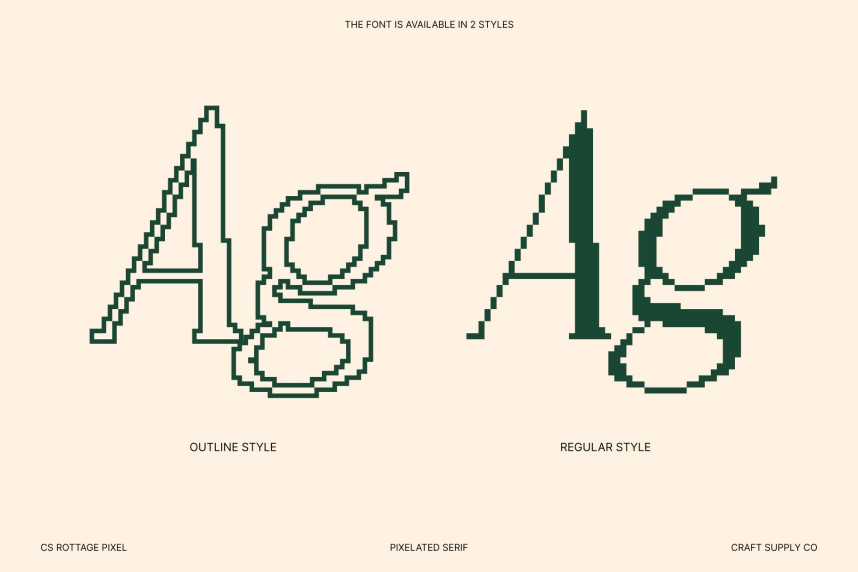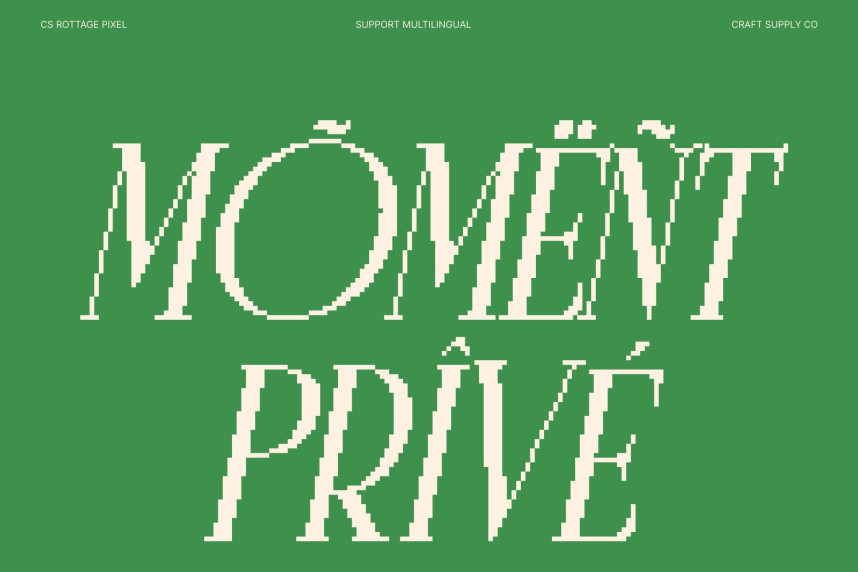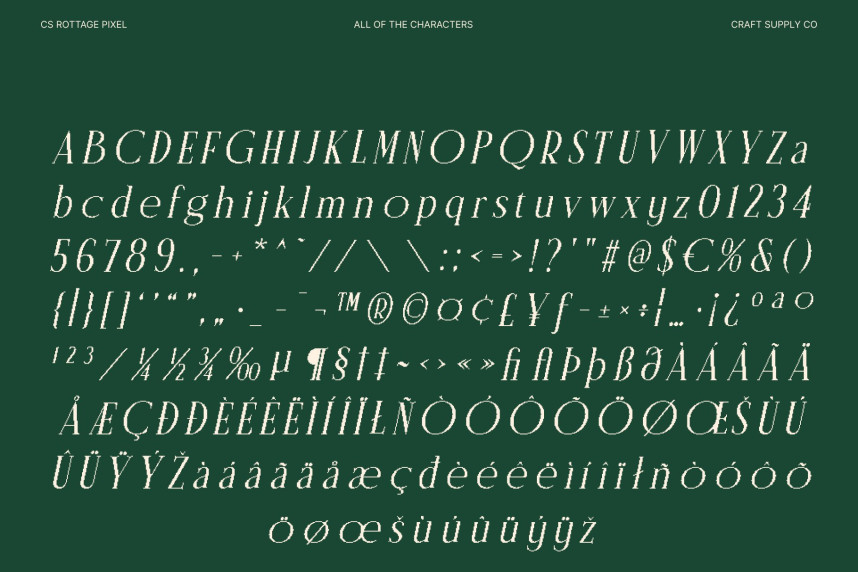
CS Rottage Pixel Font
CS Rottage Pixel Font – Classic Sophistication with Modern Pixel Simplicity Timeless Serif Elegance Refined in Pixel Form. This reimagines classic serif beauty through precise pixel construction. The font preserves its refined elegance and balanced proportions while introducing a clean, digital structure that feels sharp and contemporary. This fusion creates a sophisticated rhythm that feels timeless yet unmistakably modern.